🌸 7 Best Spring-Themed Fonts to Freshen Your Designs
Spring symbolizes renewal, growth, and vibrant energy. In the realm of design, capturing this essence requires the right typography. Whether you’re crafting wedding invitations, branding materials, or seasonal promotions, selecting the perfect spring-themed font can infuse your projects with freshness and charm. Here are seven exceptional fonts that embody the spirit of spring:
1. Weathered Sunshine – Quirky Nature Font
Overview:
Weathered Sunshine is a delightful font that encapsulates the vibrant spirit of spring. Each letter is intricately designed, featuring elements like playful birds, warm bees, and fluttering butterflies. This harmonious blend of quirky and fun characters makes it an excellent choice for a wide range of creative projects.
Ideal For:
- Children’s books
- Eco-friendly branding
- Spring event posters
2. Fresh Spring – 8 Quirky Spring Font
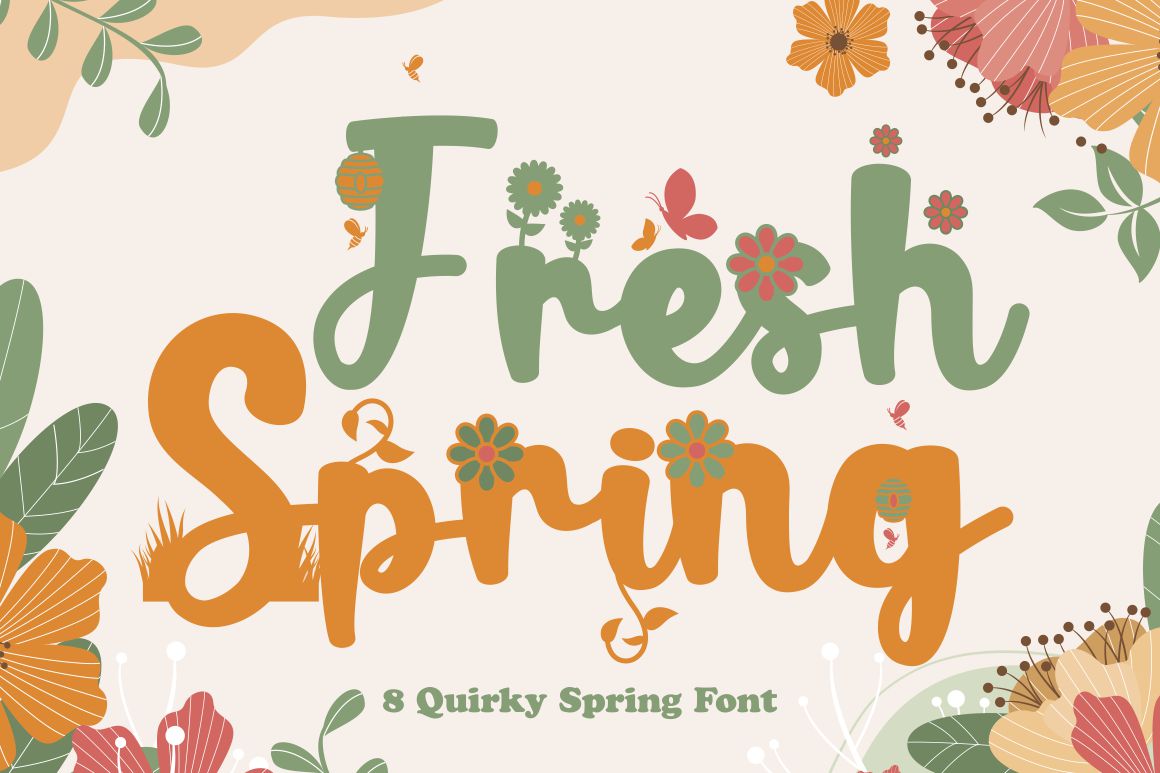
Overview:
Fresh Spring is a versatile font family comprising eight unique styles. Each variant incorporates plant embellishments and various shapes, making it suitable for any project you’re working on. Its soft and fun aesthetic brings a touch of nature to your designs.
Ideal For:
- Eco-friendly product packaging
- Spring-themed social media graphics
- Organic brand logos
3. Surprise Spring – A Bouncy Script Font
Overview:
Surprise Spring is a bold script font characterized by its bouncy baseline and unique elements added to each character. With numerous alternates and OpenType features, it allows for creative and dynamic lettering compositions.
Ideal For:
- Wedding invitations
- Fashion branding
- Greeting cards
4. Green Ecosystem – Quirky Nature Theme Font
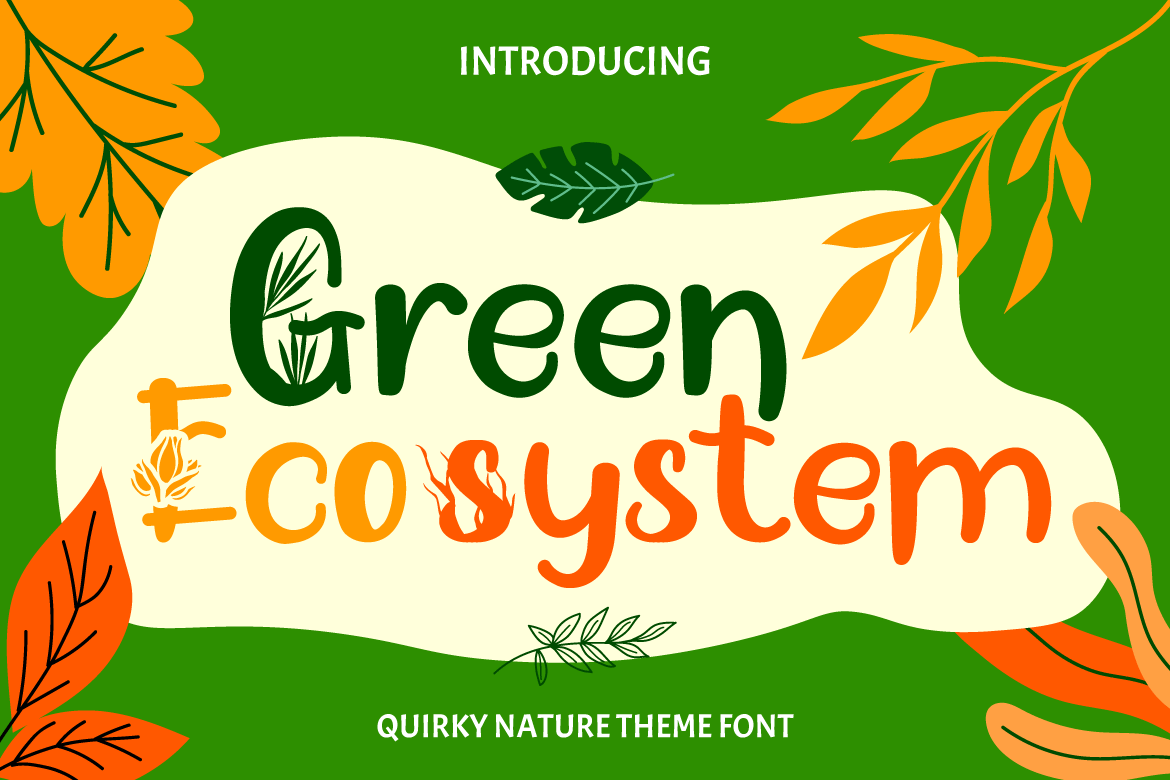
Overview:
Green Ecosystem embodies the playful and whimsical essence of nature. Inspired by leaves, trees, flowers, and branches, this font features bouncy lettering with varying thickness, capturing the fun and creativity of the natural world.
Ideal For:
- Environmental campaigns
- Organic product labels
- Nature-themed event materials
5. Springate – Modern Script Font
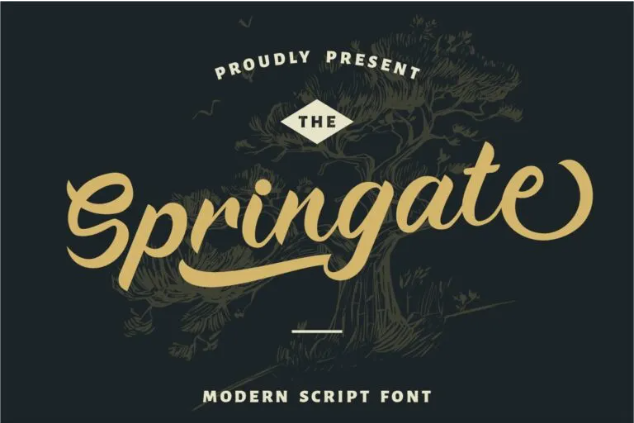
Overview:
Springate is a modern script font inspired by streetwear lettering and hand-lettering styles. Its elegant touch and flowing strokes make it perfect for adding a sophisticated flair to your designs.
Ideal For:
- Fashion branding
- Editorial layouts
- Personal blogs
6. Pearlye – Playful Bouncy Font
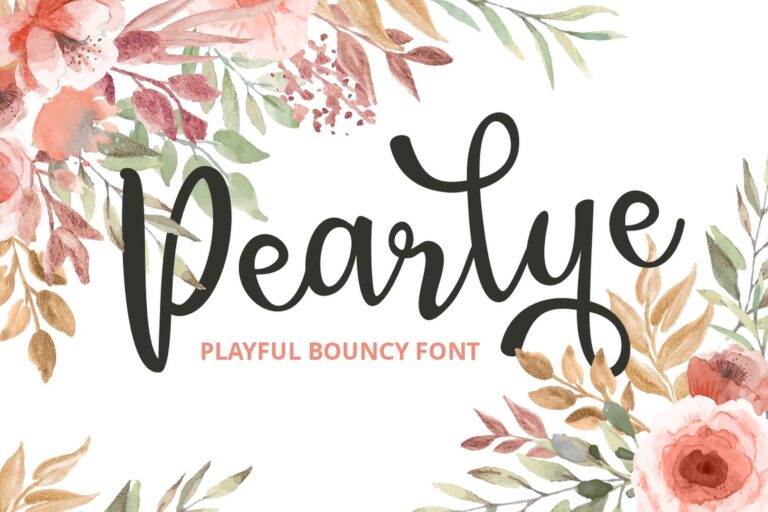
Overview:
Pearlye is a playful bouncy script font, especially perfect for crafters. Its lively characters and smooth curves bring a joyful and friendly vibe to any project.
Ideal For:
- DIY crafts
- Children’s merchandise
- Festive event invitations
7. Pastel Palooza – Quirky Easter Display Font
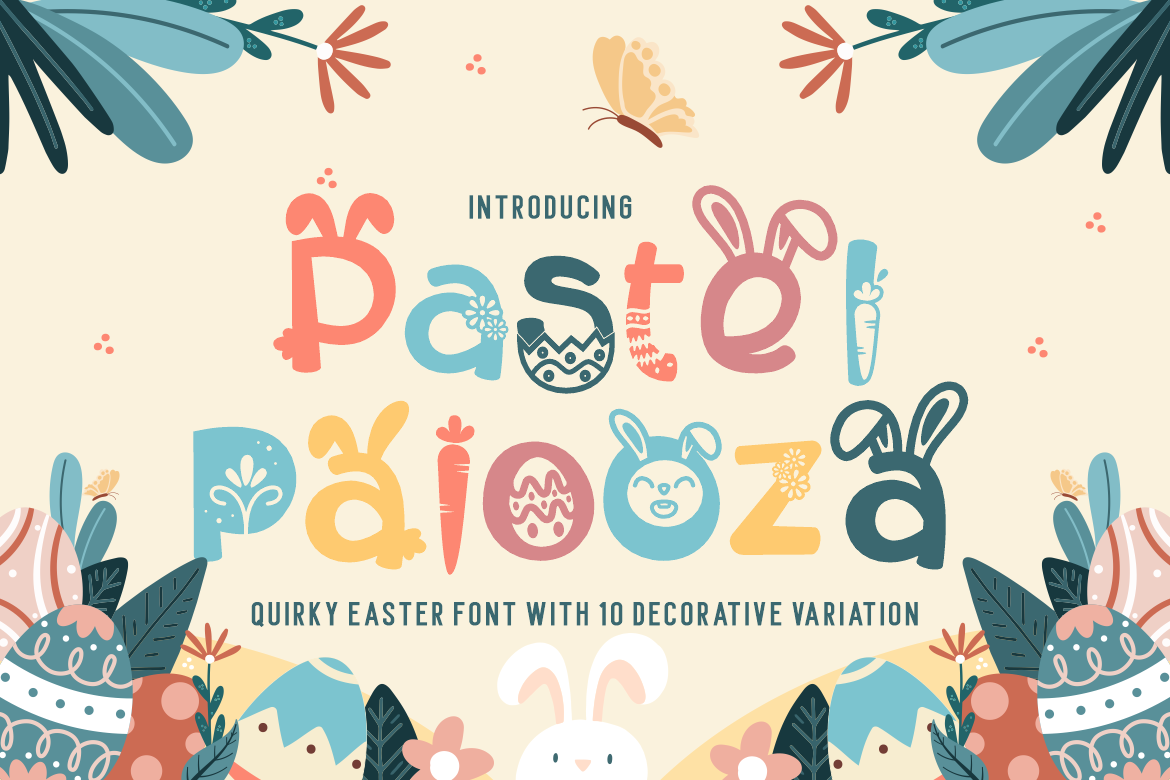
Overview:
Pastel Palooza is a delightful and playful typeface designed with the joyous spirit of Easter in mind. Featuring 10 decorative variations, it captures the whimsical elements of the season, from eggs and bunnies to flowers and carrots.
Ideal For:
- Easter-themed projects
- Children’s event materials
- Spring festival promotions
🌼 Incorporating Spring Fonts into Your Design Projects
When integrating these spring-themed fonts into your designs, consider the following tips:
- Pairing Fonts: Combine script fonts like Surprise Spring with sans-serif fonts for a balanced look.
- Color Palette: Use pastel colors to enhance the spring vibe.
- Whitespace: Allow your designs to breathe by incorporating ample whitespace, highlighting the elegance of these fonts.
🌷 Conclusion
Embracing the essence of spring in your designs can rejuvenate your creative projects. These seven fonts offer a blend of playfulness, elegance, and nature-inspired elements, making them perfect for a variety of applications. Whether you’re designing for seasonal events, branding, or personal projects, these fonts will infuse your work with the freshness and vitality of spring.